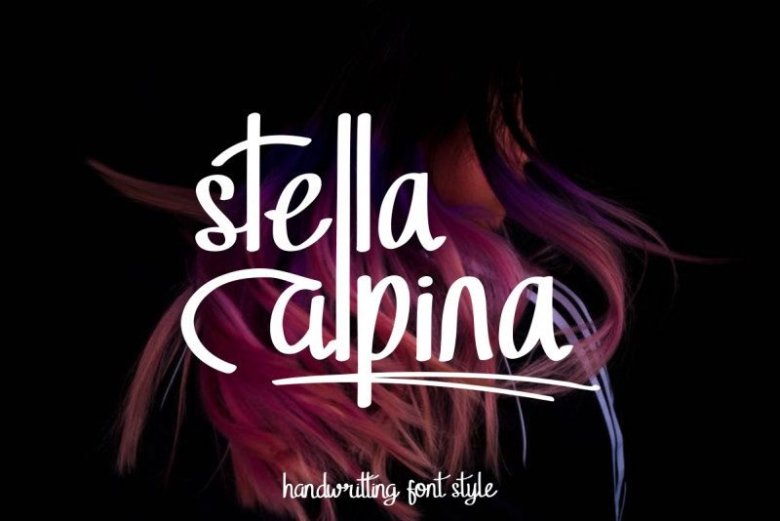
Stella Alpina Script Font
Hello Guys! Introducing Stella Alpina Script Font, This is our newest font collection, it’s a Graffiti Hand-drawing Font. It has THREE different styles with unlimited possibilities to make. The regular style is a handwriting signature script, the ALT style is a comic sans serif and The third style is cute caps, which is will be great for many cute projects.
This is a sophisticated styling font which will be perfect for branding, logo, photography and signature. It is so elegant, classy, strong and beautiful.